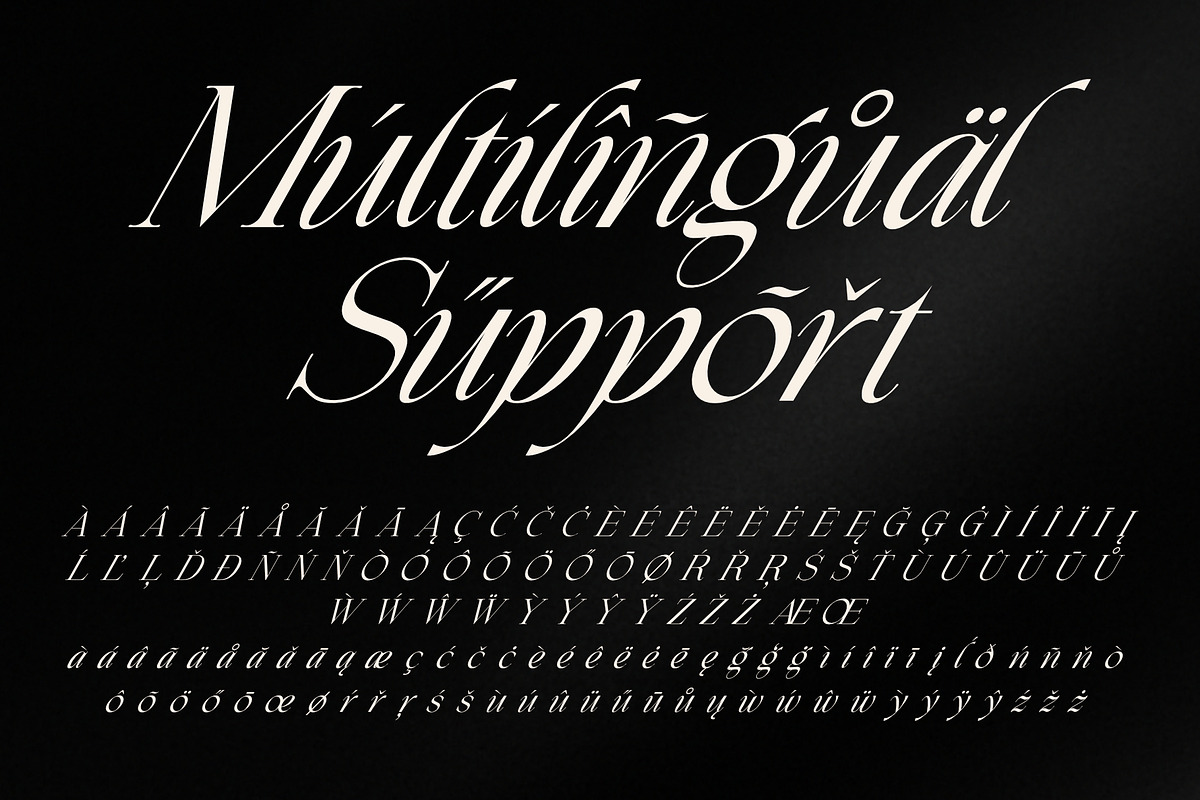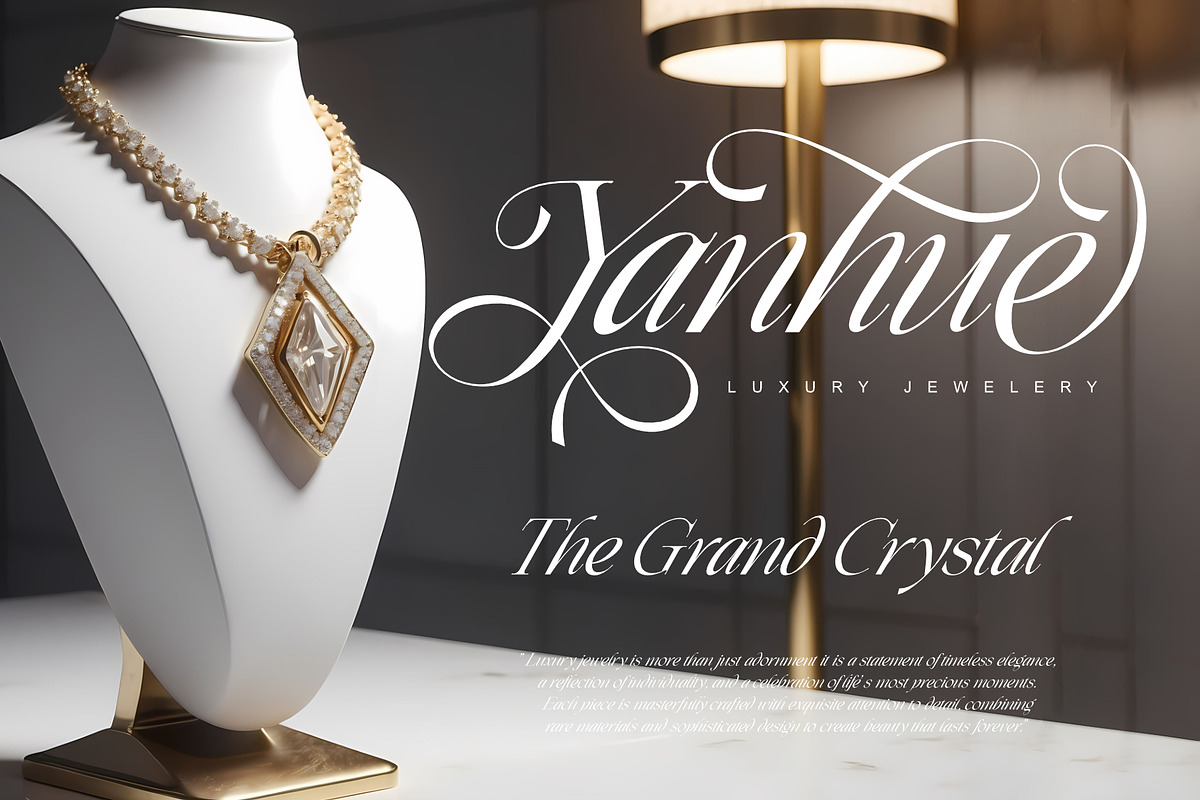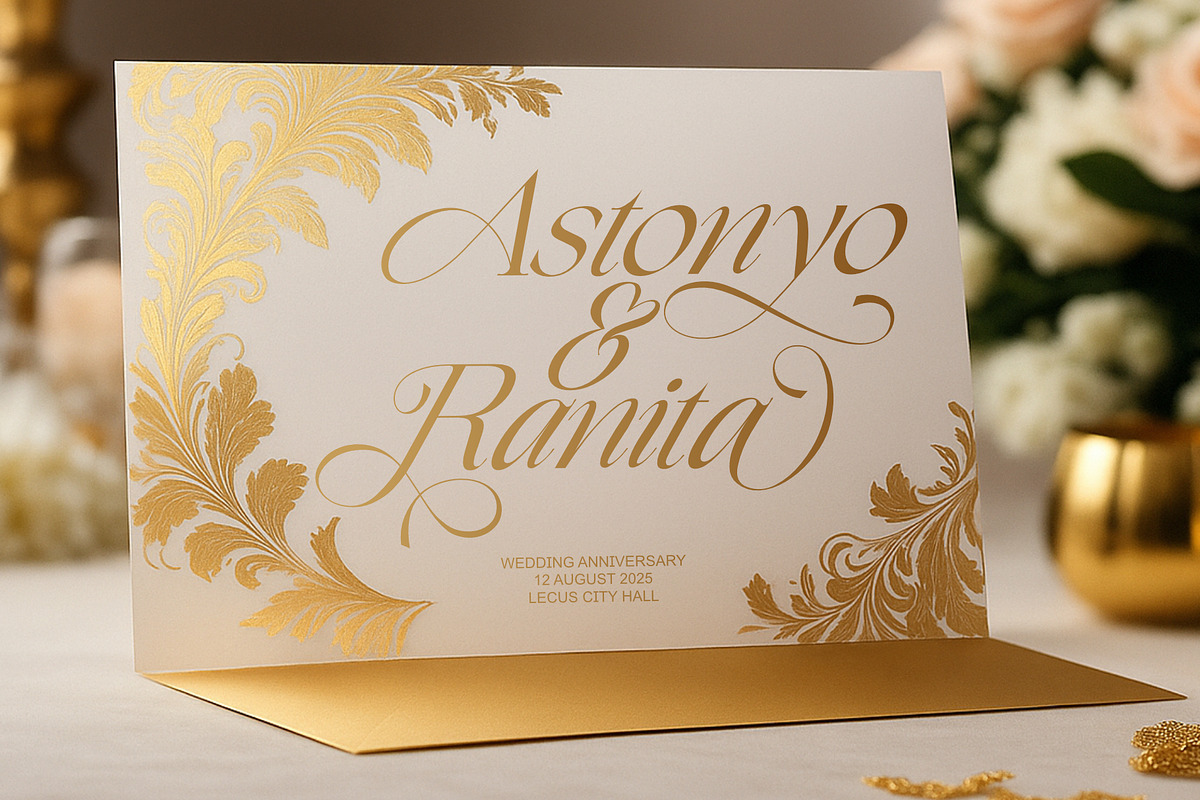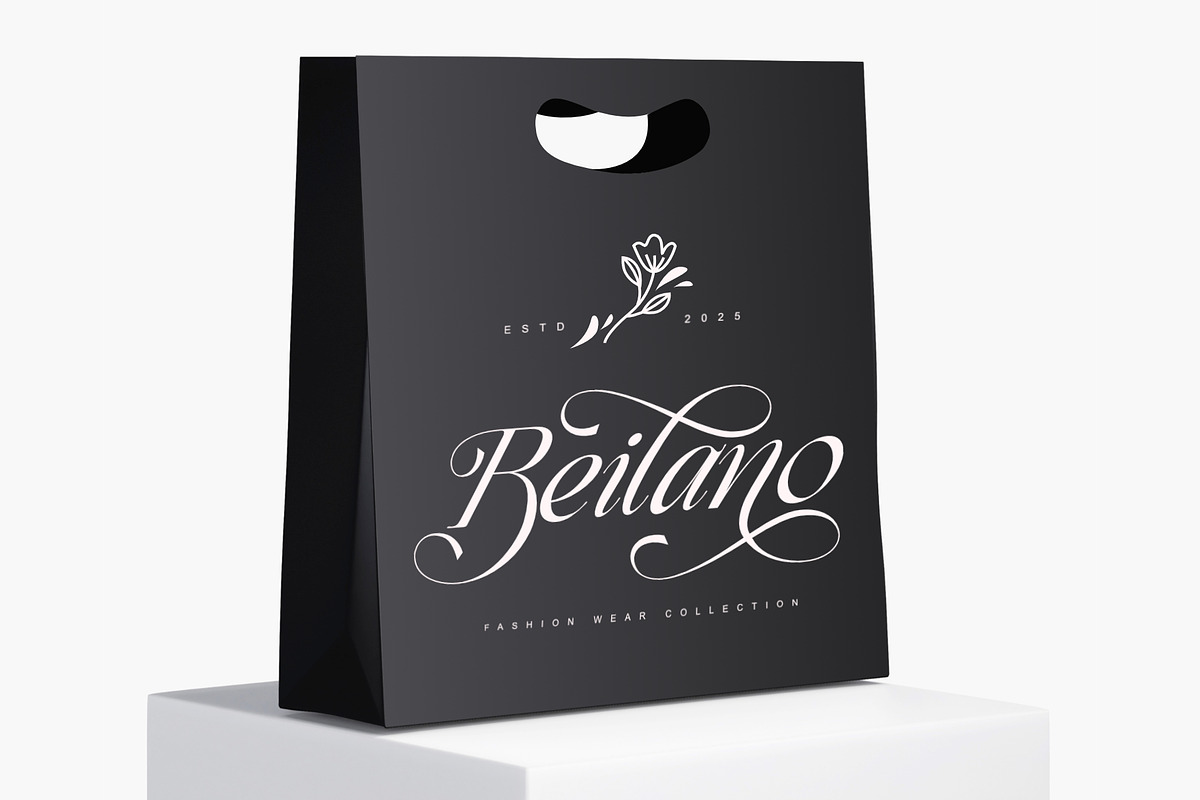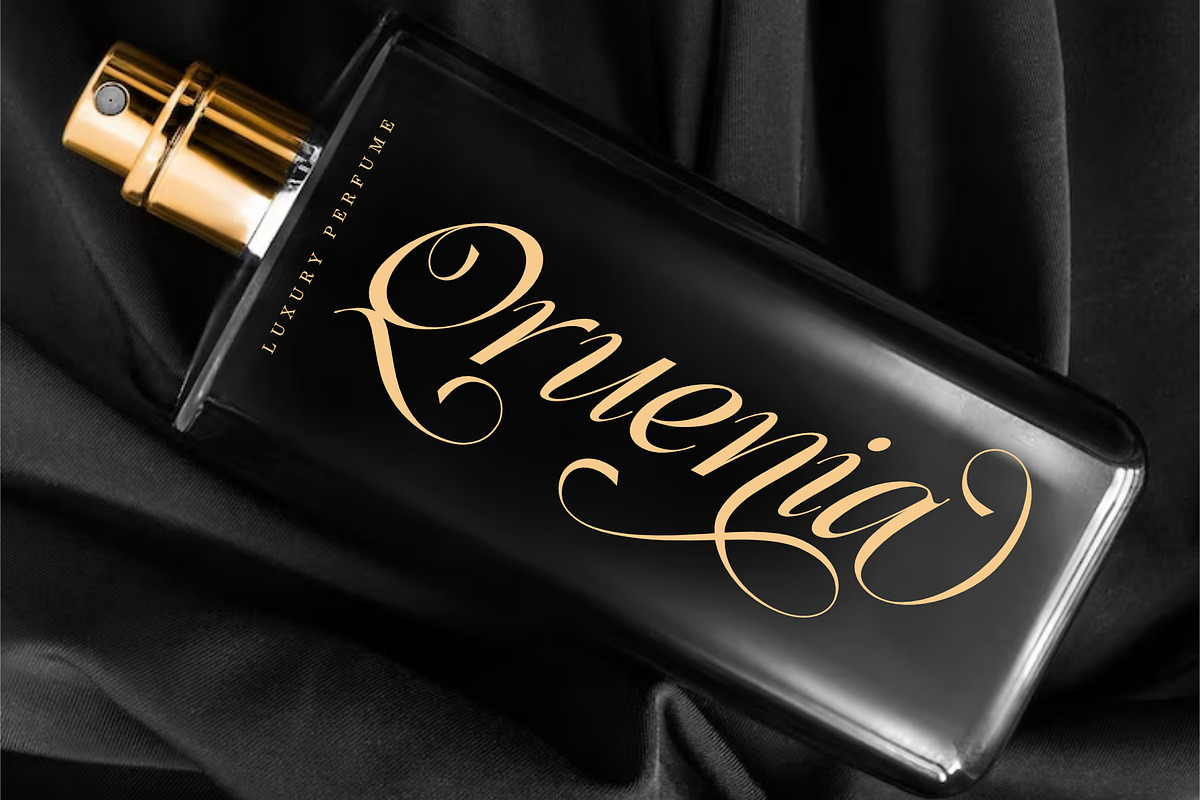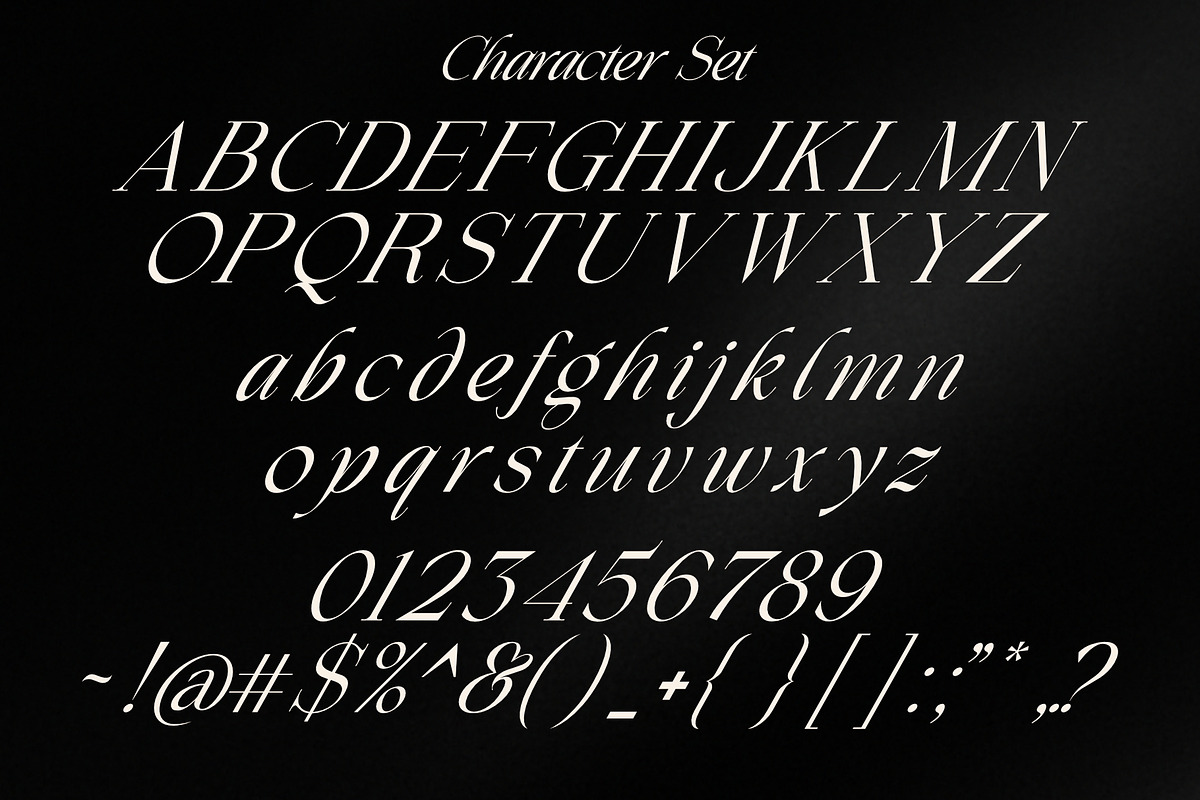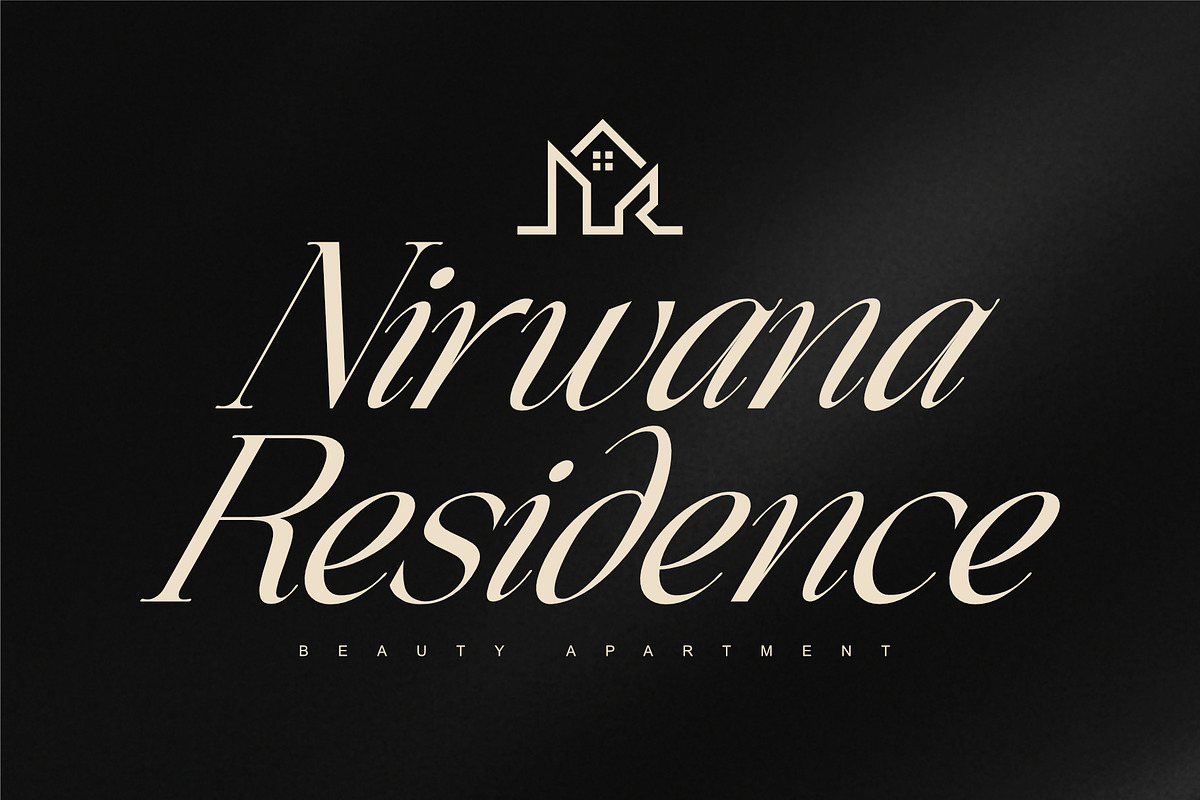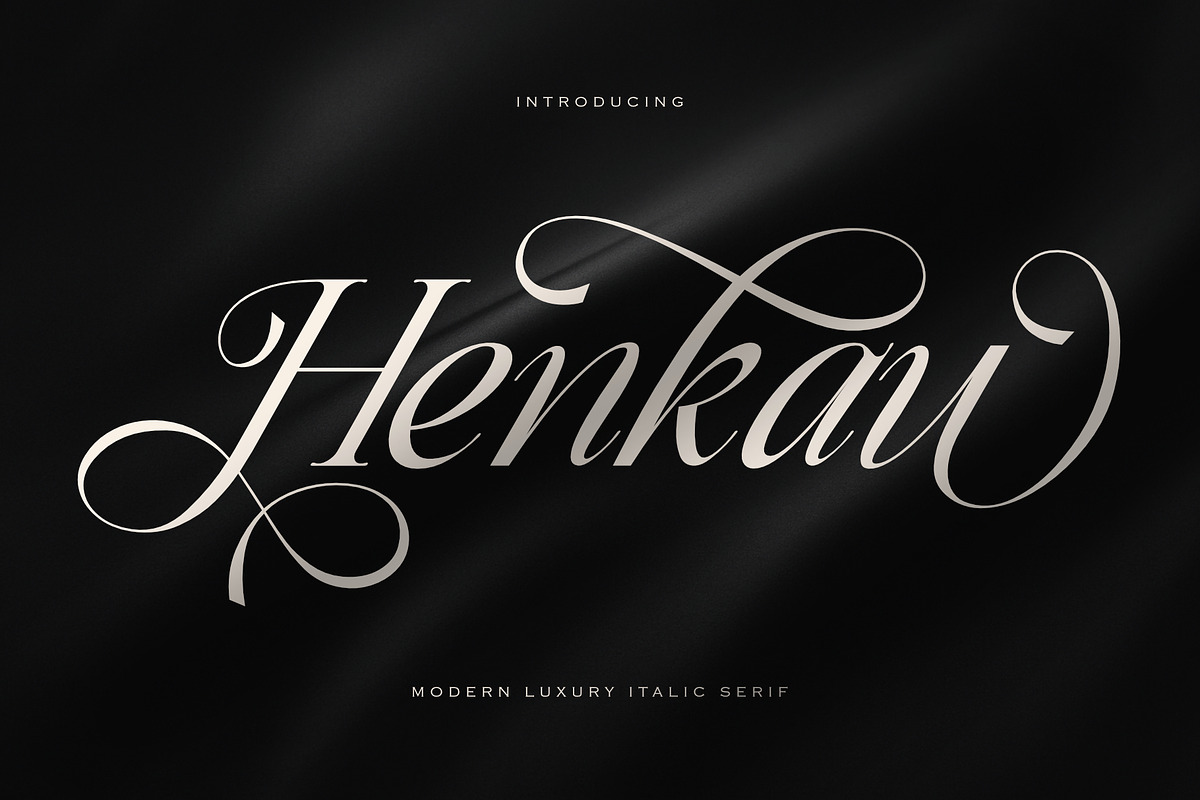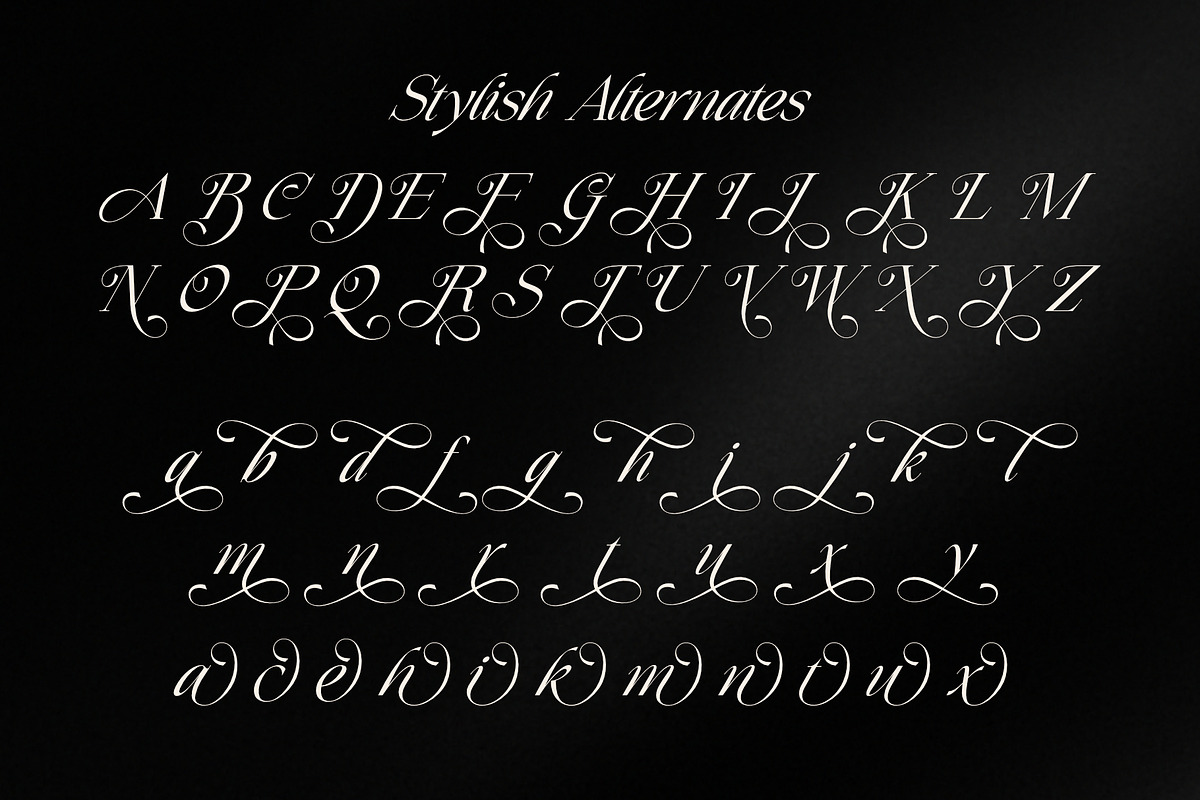
Henkau - Modern Luxury Italic Serif
A Blend of Elegance and Modern Sophistication Henkau is a luxurious italic serif font designed for those who value refined and elegant typography. With its smooth curves and graceful letterforms, Henkau reflects exclusivity and high taste. Influenced by classic calligraphy with a contemporary twist, it’s perfect for premium branding, fashion features, and upscale invitations.
Designed for Prestige and Sophisticated Visuals This typeface brings an elegant presence to any design that calls for a touch of class. Whether you're crafting a luxury logo, high-end packaging, or stylish wedding stationery, Henkau adds a refined visual impact. Its flowing italic strokes offer movement and charm, making it ideal for beauty branding, fashion ads, and editorial layouts.
Elegant, Versatile, and Distinctive The refined style of Henkau makes it a favorite among designers aiming for a polished, upscale look. From magazine titles to perfume packaging, it delivers a sense of exclusivity. If you're seeking a font that embodies luxury and sophistication, Henkau is a standout choice for your collection.
Henkau – Luxury Italic Serif Font Features:
Alternate Characters Included
Full Range of Punctuation, Numbers, and Symbols
OpenType Features
Multilingual Support for: Afrikaans, Albanian, Basque, Dutch, English, Estonian, Filipino, Finnish, French, Galician, German, Indonesian, Irish, Italian, Malagasy, Portuguese, Spanish, Swedish, and more.